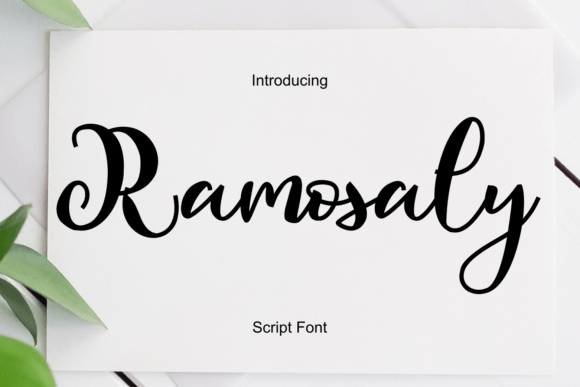
Welcome to the world of Ramosaly, a script font family that exudes both charm and elegance in every letterform. Created by the talented Infontree, Ramosaly offers a stunning array of possibilities for your creative endeavors.
Imagine the beauty of your wedding invitations, the warmth of your thank you cards, the heartfelt quotes that touch your soul, the cheerful greeting cards that spread joy, the distinctive logos that establish your brand identity, the professional business cards that leave a lasting impression, and every other design that yearns for a handwritten touch. Ramosaly transforms them all into visual masterpieces.
With Ramosaly, your school papers will shine brighter than ever before. Its carefully crafted characters bring a touch of sophistication to essays, reports, and presentations, setting them apart from the ordinary. Whether you're a student striving for academic excellence or an educator seeking to engage your students, Ramosaly is your perfect companion in the pursuit of knowledge.
Ramosaly is more than just a font; it's an expression of your individuality, a reflection of your unique style. Its elegant curves and delicate flourishes add a personal touch to your designs, captivating your audience with their timeless beauty.
Choose Ramosaly and embark on a journey of creativity, where your imagination takes center stage. Let its charm and elegance elevate your designs to new heights, leaving a lasting impression on all who encounter them. Make Ramosaly your font of choice and unlock a world of endless possibilities.